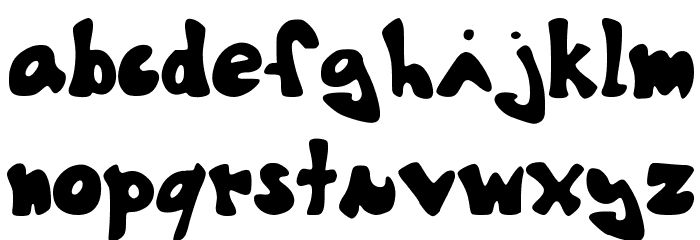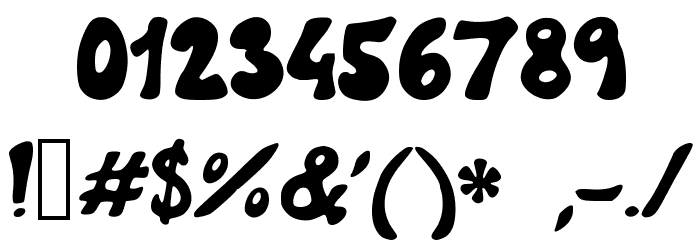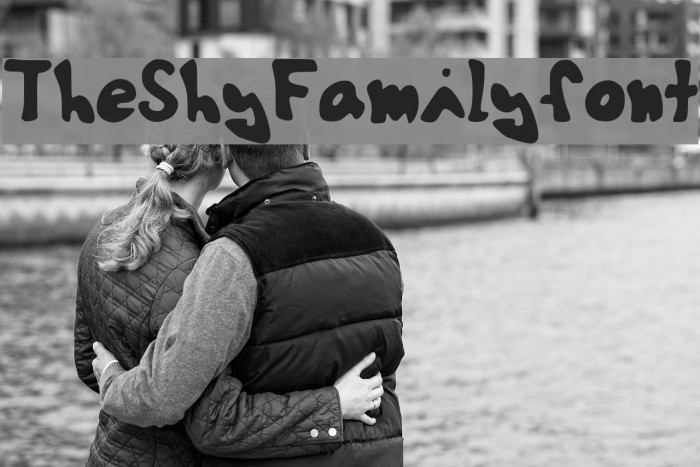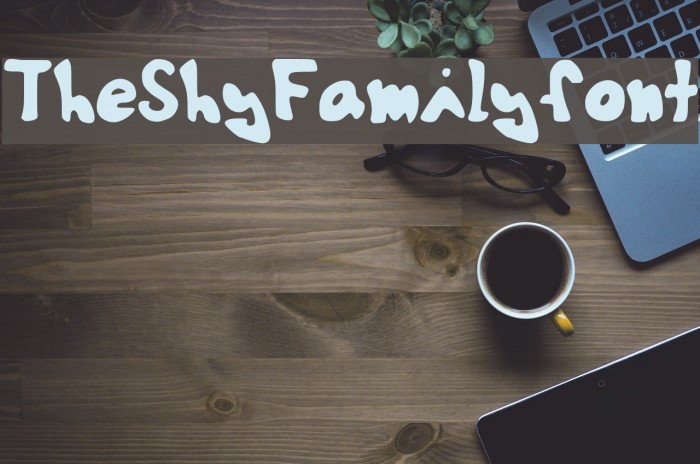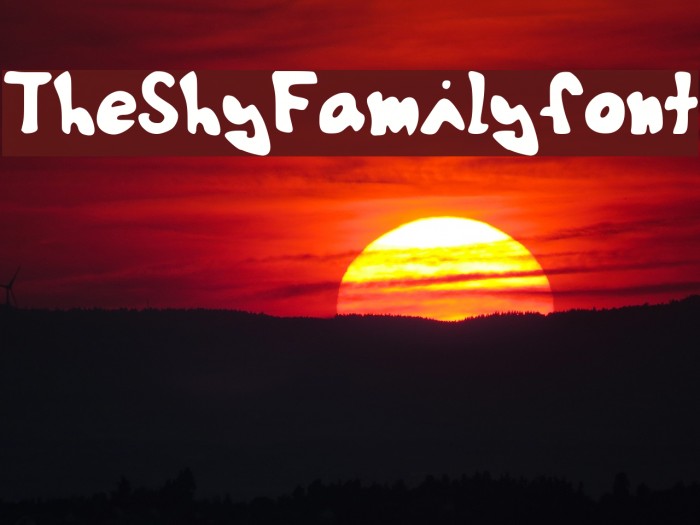
TheShyFamilyfont Font
This playful and bold font features thick, rounded characters with a whimsical and informal style. The letters are slightly irregular, giving them a hand-drawn appearance that adds a touch of personality and charm. The font is characterized by its heavy weight and smooth curves, making it stand out in any design. The uppercase and lowercase letters maintain a consistent style, while the numbers and special characters are equally bold and expressive. This font's unique style makes it suitable for projects that require a fun and engaging visual element.
A bold, playful font with rounded, hand-drawn characters.
- Proposed Projects: Ideal for children's books, playful branding, posters, and creative invitations.
- Overall Style: Playful